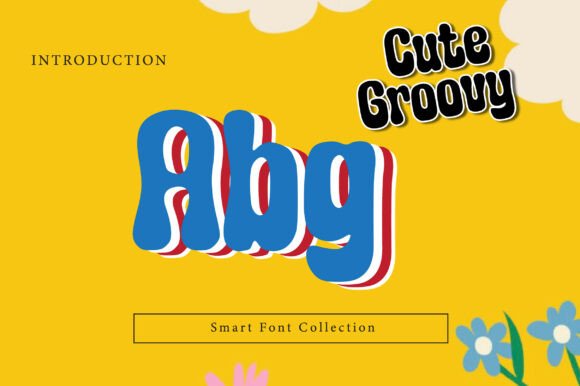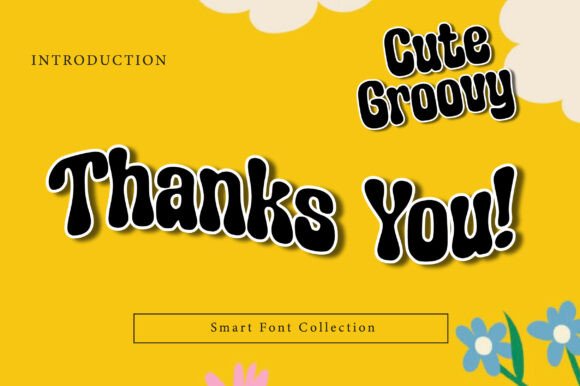
Cute Groovy Font: Add a Cheerful Retro Vibe to Your Designs
Are you looking for a font that can add a playful and nostalgic touch to your designs? Look no further than Cute Groovy, a fun and retro-inspired display font that’s perfect for creative projects that need a happy, friendly, and funky feel. In this article, we’ll explore the features and benefits of Cute Groovy, and show you how to make the most of this amazing font.
What is Cute Groovy Font?
Cute Groovy is a bold, rounded, and smooth font that’s inspired by the classic 70s groovy style. With its thick lettering and soft edges, this font is highly readable and visually strong, making it perfect for headlines, titles, and short text passages. The font’s playful and cheerful vibe is ideal for designers who want to add a touch of nostalgia and fun to their designs.
Key Features of Cute Groovy Font
- Retro-inspired design: Cute Groovy is inspired by the classic 70s groovy style, with bold, rounded letterforms and smooth curves that evoke a sense of nostalgia and fun.
- Playful and cheerful vibe: This font is designed to bring a happy and friendly feel to your designs, making it perfect for creative projects that need a playful touch.
- Highly readable: The thick lettering and soft edges of Cute Groovy make it highly readable, even at small sizes.
- Versatile: This font works beautifully in bright, colorful designs, but also looks great in simple monochrome layouts.
Use Cases for Cute Groovy Font
Cute Groovy is a versatile font that can be used in a wide range of creative projects, including:
- Logo design: Add a playful and nostalgic touch to your logo with Cute Groovy.
- Posters and flyers: Use Cute Groovy to create eye-catching posters and flyers that grab attention.
- Product packaging: Add a fun and cheerful vibe to your product packaging with Cute Groovy.
- Sticker designs: Create fun and playful stickers with Cute Groovy.
- Social media content: Use Cute Groovy to add a playful touch to your social media graphics.
- Kids branding: Cute Groovy is perfect for kids’ branding, with its playful and cheerful vibe.
- Apparel graphics: Add a fun and nostalgic touch to your apparel graphics with Cute Groovy.
- Retro-themed artwork: Use Cute Groovy to create retro-themed artwork that’s full of nostalgia and fun.
Tips for Using Cute Groovy Font
Here are some tips for getting the most out of Cute Groovy:
- Use it for headlines and titles: Cute Groovy is perfect for headlines and titles, where its bold and playful vibe can really shine.
- Experiment with colors: Cute Groovy works beautifully in bright, colorful designs, but also looks great in simple monochrome layouts.
- Pair it with other fonts: Try pairing Cute Groovy with other fonts to create a unique and interesting typography combination.
- Use it for short text passages: Cute Groovy is best suited for short text passages, such as headlines, titles, and captions.
Cute Groovy is a fun, playful, and retro-inspired display font that’s perfect for creative projects that need a happy, friendly, and nostalgic feel. With its bold, rounded letterforms and smooth curves, this font perfectly captures the classic 70s funky style while keeping the look fresh, cute, and modern. Whether you’re a designer or a crafter, Cute Groovy is a great choice for adding a playful and nostalgic touch to your designs.